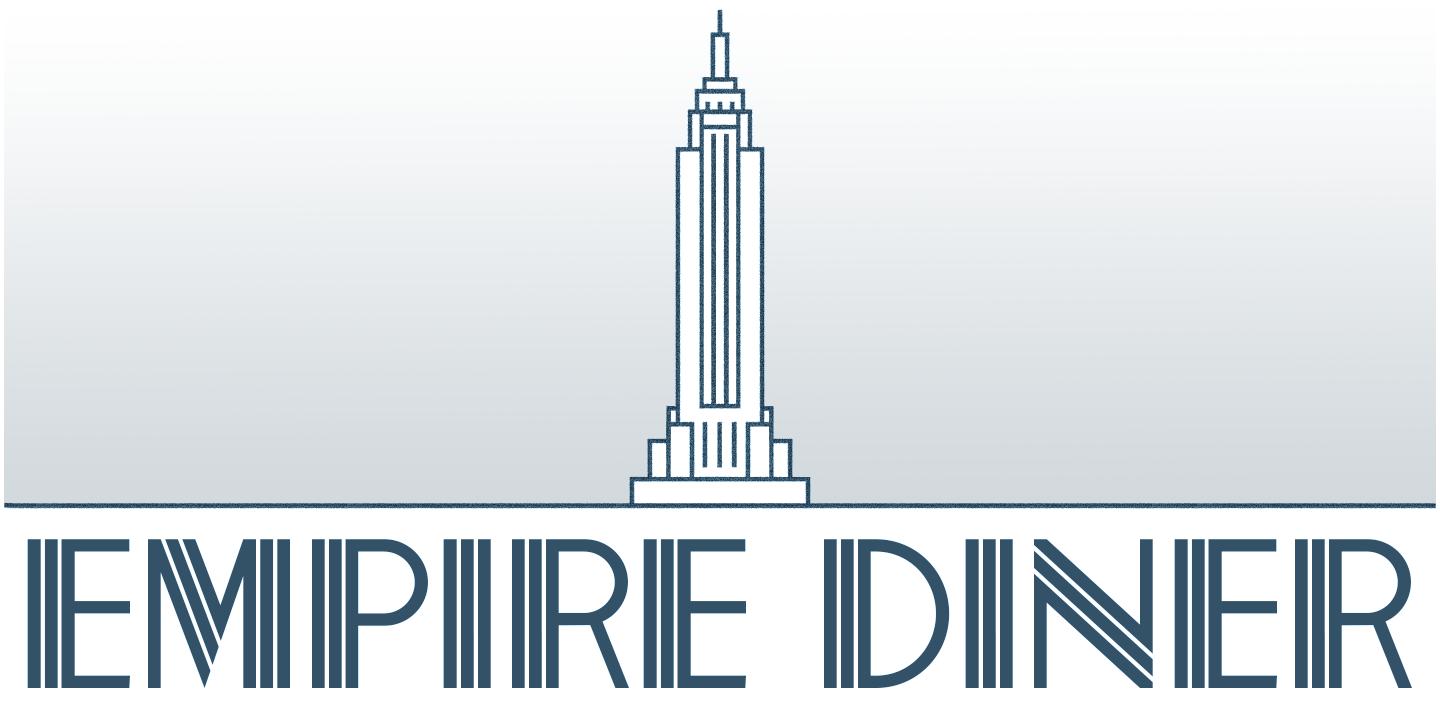
The Empire Diner Font excels in classic American diner branding, retro restaurant signage, vintage food service communications, 1950s-themed establishments, nostalgic café identities, classic burger joint promotions, traditional milkshake parlors, and authentic Americana design applications that require diner nostalgia with classic character and timeless comfort food appeal.
What makes the Empire Diner Font Free Download so exciting is its exceptional ability to transport audiences back to the golden age of American diners through typography that perfectly captures the chrome and neon aesthetic of classic roadside establishments that defined American dining culture. This typeface features distinctive letterforms with authentic diner characteristics that suggest jukebox music, checkered floors, and the comforting atmosphere of traditional American comfort food establishments where communities gathered for generations. Its nostalgic aesthetic speaks to food lovers who appreciate both classic American cuisine and the social traditions that made diners the heart of American communities.
The Empire Diner Font family encompasses comprehensive weight variations from Regular to Bold, each maintaining the font's signature diner character and Americana sophistication. The collection includes Medium and Bold styles with enhanced retro characteristics that reinforce the font's classic appeal and nostalgic authority. This authentic font system ensures diner owners and retro food service providers have access to typography that conveys genuine American nostalgia while creating immediate connection to concepts of comfort food, community gathering, and classic American dining traditions.
Perfect for classic diners, retro restaurants, Americana-themed venues, and creative professionals working on projects that celebrate traditional American dining culture and nostalgic food service heritage. The font's diner appeal makes it invaluable for restaurant marketers, retro food service designers, and hospitality professionals developing communications that must capture authentic American diner charm. Download Empire Diner Font Free Download today and serve up typographic nostalgia with this exceptional typeface that sizzles with classic American charm while delivering diner authenticity and comfort food sophistication for traditional restaurant communications.